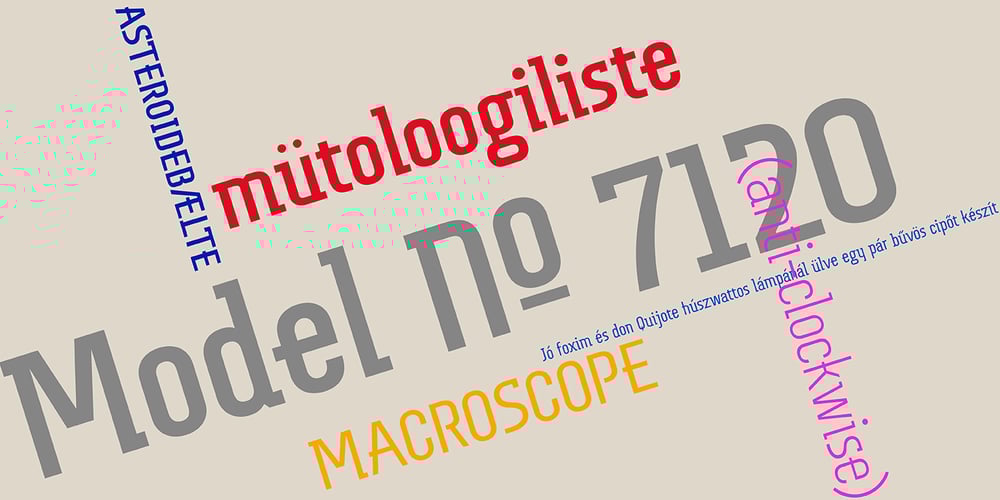
Lizie Slab Font Family was designed by Poul Allan and published by Poul Allan Studio. Lizie Slab contains 3 styles and family package options. Lizie Slab is a slab serif, where the geometric construction is inspired by the 1930s design icons De Stijl, Gerrit Rietveld and others. Lizie Slab is designed for both print and digital use, and you will find it ideal for packaging, poster design, catalogs and exhibition design. The font supports a wide range of languages. This OpenType contains features such as fractions, proportional and tabular shapes.